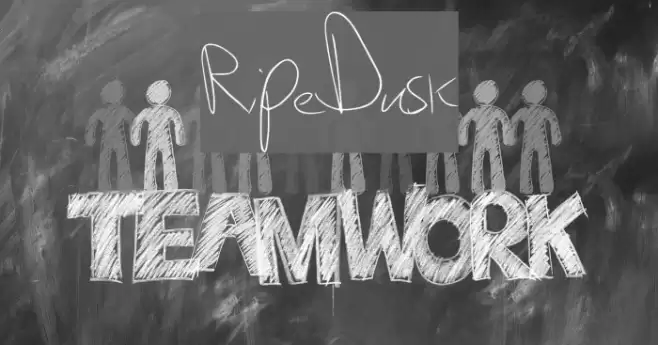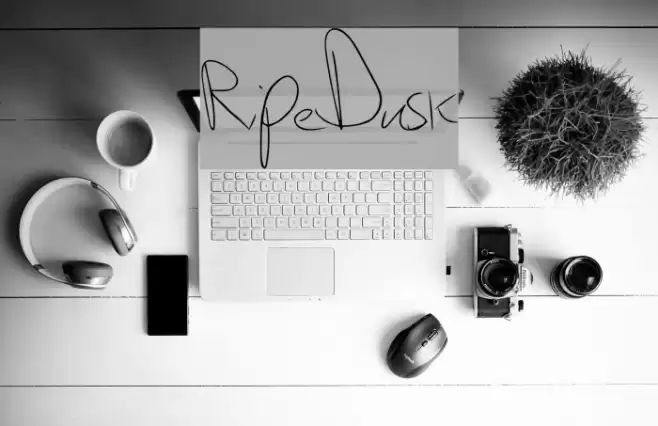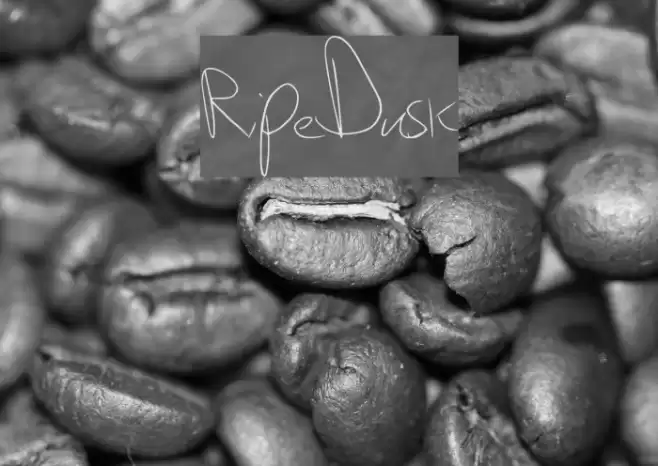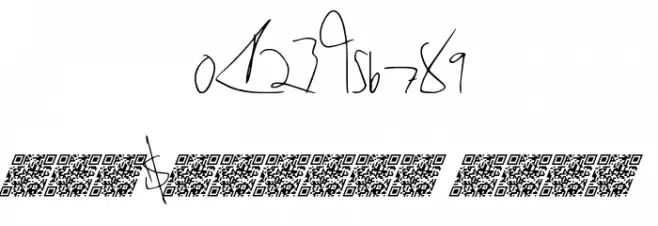
RipeDusk Font
RipeDusk Description
This font exudes a casual, handwritten style with a playful and spontaneous feel. The letters are unevenly sized and spaced, mimicking the natural flow of handwriting. The strokes are thin and slightly irregular, adding to the informal and relaxed aesthetic. It captures a sense of creativity and personal touch, making it ideal for projects that require a human element. The font's unique character is evident in its quirky letterforms, which vary in height and slant, giving each character a distinct personality. This font is perfect for adding a personal, artistic flair to any design.
A casual, handwritten font with a playful and spontaneous feel from Handwritten fonts.
- Proposed Projects: Ideal for personal notes, creative projects, invitations, and artistic designs.
- Weight: Light
- Overall Style: Casual, Artistic
- Use Case: Invitations, Personal notes, Creative projects